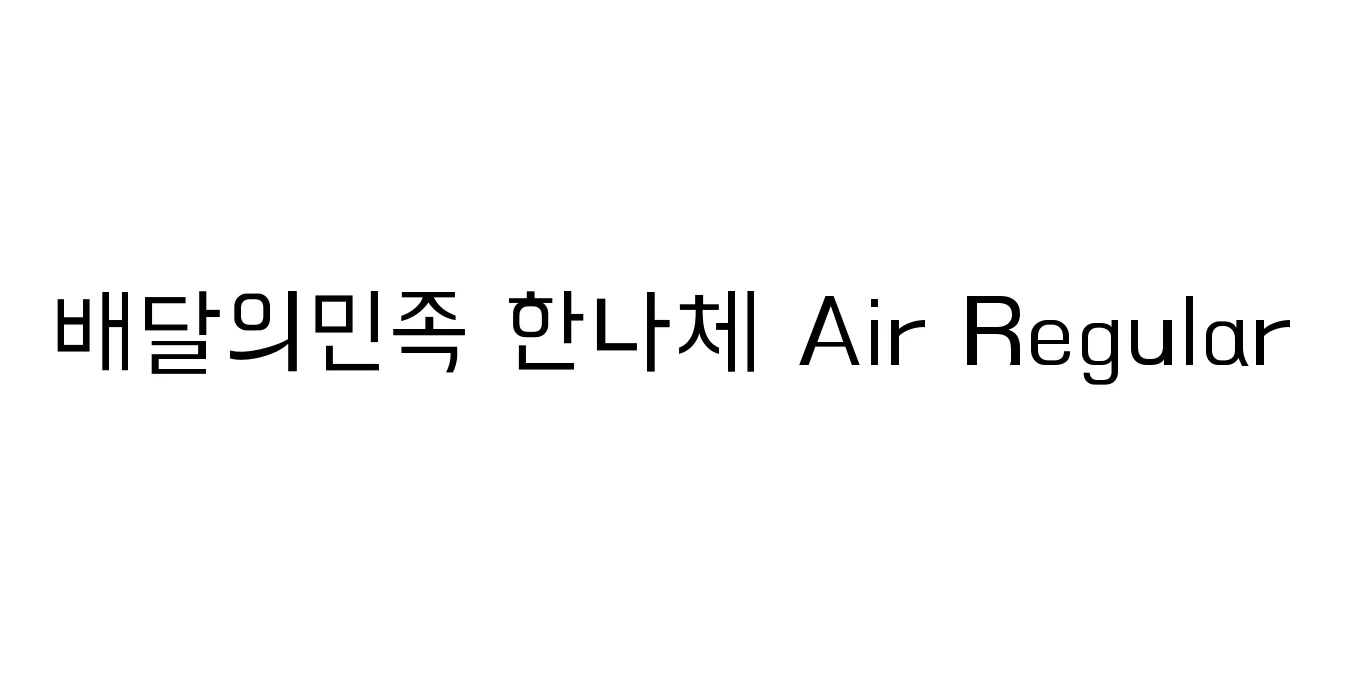
배달의민족 한나체 Air Regular
Designed by Woowa Brothers
| Font Name | 배달의민족 한나체 Air |
| Category | Sans-serif / Display |
| Designer | Woowa Brothers |
BM Hanna Air is a lighter, more sophisticated version of the iconic 'BM Hanna' typeface, which draws inspiration from the hand-painted acrylic plate signs commonly seen on South Korean storefronts during the 1960s and 70s. While the original Hanna font is characterized by its heavy, bold strokes and nostalgic blockiness, the Air variant introduces a thin, elegant weight that retains the unique structural DNA of the series while offering improved legibility and a modern, airy aesthetic. This makes it an ideal choice for designers who want to capture a vintage Korean vibe without the overwhelming visual weight of traditional display fonts.
Developed and released by Woowa Brothers (the company behind the Baedal Minjok delivery service), this font is part of a larger initiative to provide high-quality Korean typography to the public for free. BM Hanna Air excels in body text, digital user interfaces, and refined branding projects where a balance between personality and clarity is essential. Since its release, it has become a staple in the Korean design landscape, widely utilized across web platforms, mobile applications, and printed publications for its clean yet characteristic appearance.
배달의민족 한나체 Air Regular Best Uses
Perfect for body text or subheaders on websites looking for a clean, professional look with a touch of character.
Highly legible on mobile screens, making it suitable for UI elements and in-app content.
Ideal for sophisticated brand identities that want to blend modern minimalism with traditional Korean influence.
Excellent for creating stylish, readable captions and quote cards on platforms like Instagram.